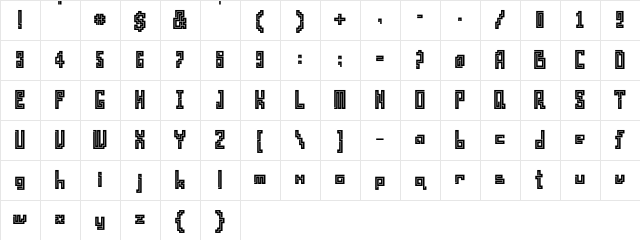
Complete Pype Extrabold glyph index. Displaying only characters natively supported by Pype Extrabold font.
Pype is a composed and adaptable typeface that performs quietly and consistently across a wide range of design contexts. Its bold stroke weight gives it real presence on the page.